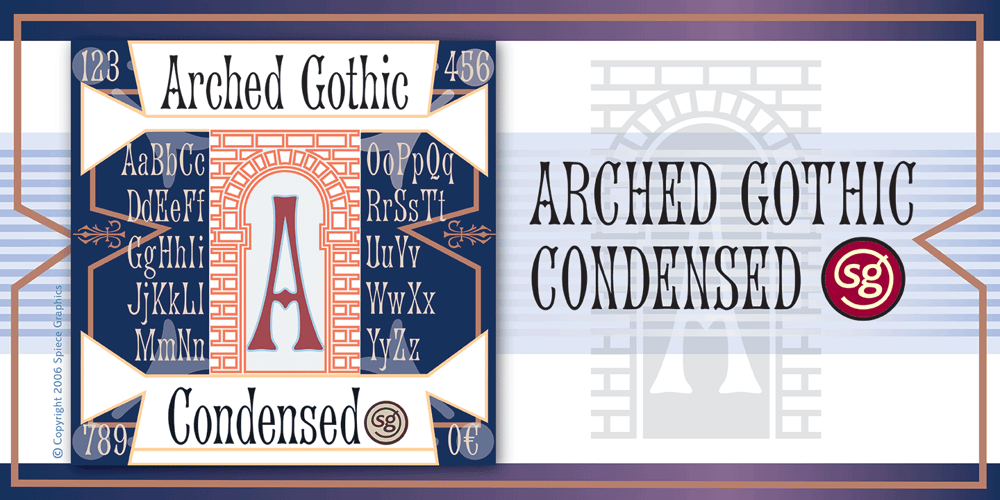
Arched Gothic Condensed SG Font Family was designed by published by Spiece Graphics. Arched Gothic Condensed SG contains 1 styles and family package options. Like a bright star shimmering on a still and quiet summer night, Arched Gothic Condensed is a glowing example of Victorian type. Thin in the middle with clumpy wedges on top and bottom, it truly bears the spirit of a bygone era. Originally known as Concave Extra Condensed, this typeface has shed its waist-high spur notches and gained new figures and lowercase letters. Developed around 1885 by the James Conners & Son Foundry (New York), Arched Gothic Condensed is a marvel of sparkle and glitter in nineteenth century typeface design. Arched Gothic Condensed is also available in the OpenType Std format. Some new characters have been added to this OpenType version. Advanced features currently work in Adobe Creative Suite InDesign, Creative Suite Illustrator, and Quark XPress 7. Check for OpenType advanced feature support in other applications as it gradually becomes available with upgrades.